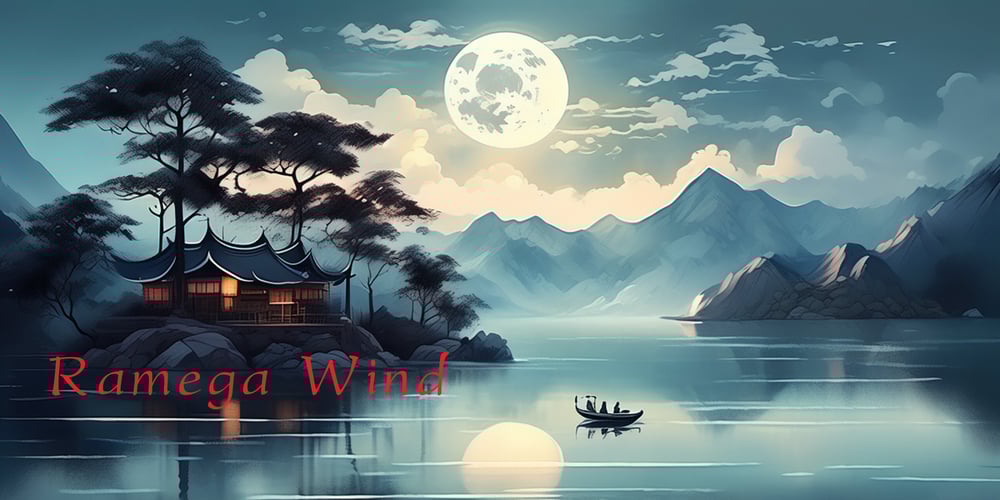
Ramega Wind Font Family was designed by Apollo Zhang and published by Ramega. Ramega Wind contains 1 styles and family package options. Introducing “Ramega Wind,” the newest ensemble in the realm of typography, capturing the essence of a gentle yet assertive breeze. This font, with its distinctly soft pen handwriting style, carries a subtle rightward slant that suggests forward motion and progress. Each stroke in “Ramega Wind” is thoughtfully crafted to echo the tender touch of a brush gliding across the canvas of paper, endowing text with an organic flow and dynamism.Embracing the delicate balance between sophistication and playfulness, “Ramega Wind” envelops words with a personal flair, rendering each sentence as intimate as a handwritten note. The slight inclination of each letter adds a sense of urgency and liveliness, while maintaining the elegance and harmony that are the hallmarks of classic calligraphy.”Ramega Wind” is poised to add character to a variety of design endeavors – from bespoke event invitations that charm their recipients, to boutique branding that requires a signature touch. This font’s artistic warmth makes it perfectly suited for literary publications, heartfelt greetings, and any project that desires to convey emotion and human connection.The hearty embrace of tradition and the breezy tilt of innovation make “Ramega Wind” a versatile ally in both print and digital landscapes. It navigates the fine line between the legibility necessary for comprehensive reading and the aesthetic finesse sought by design connoisseurs. With “Ramega Wind,” you are not merely choosing a typeface, you are inviting an element of spirited elegance to waltz with your words, leaving an imprint of beauty on the minds of your audience.